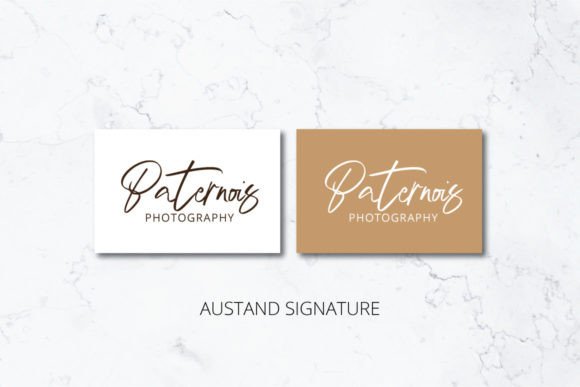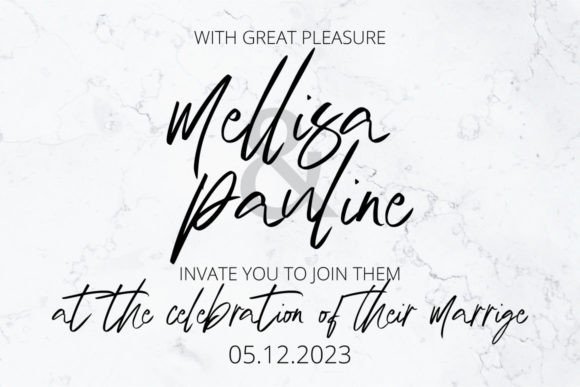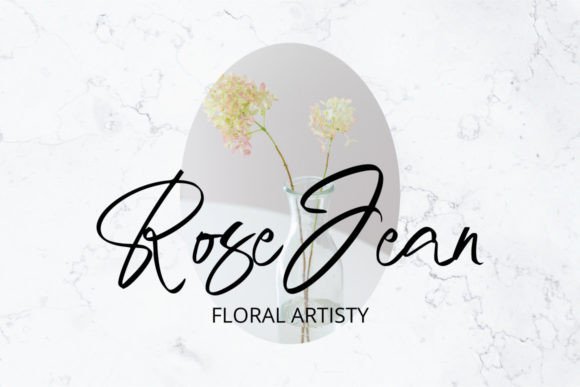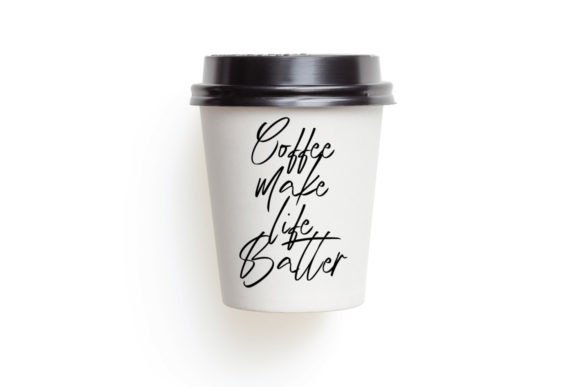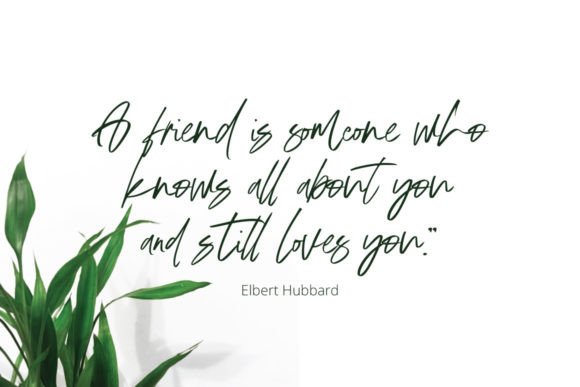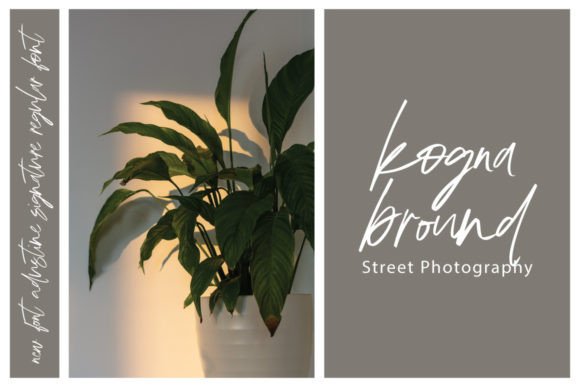
Austand Signature Font: Elevate Your Designs with Elegance and Sophistication
In the world of typography, a well-crafted font can make all the difference in transforming a design from ordinary to extraordinary. For designers and crafters seeking to add a touch of elegance and sophistication to their projects, Austand Signature Font is an exquisite handwritten font that is sure to capture your heart. With its masterful blend of classy calligraphic influences and contemporary flair, Austand Signature is the perfect choice for those who want to take their designs to the highest levels.
The Story Behind Austand Signature Font
Austand Signature Font is a meticulously designed font that boasts a unique and distinctive character. Its creator has poured their heart and soul into crafting a font that not only exudes elegance but also feels fresh and modern. The result is a beautiful handwritten font that is perfect for a wide range of design applications, from wedding invitations and branding materials to packaging and digital media.
Key Features of Austand Signature Font
So, what makes Austand Signature Font so special? Here are just a few of its key features:
- Exquisite Handwritten Style: Austand Signature Font features a beautiful, handwritten style that is both elegant and refined.
- Classy Calligraphic Influences: The font’s calligraphic influences add a touch of sophistication and luxury to any design.
- Contemporary and Fresh: Despite its classic influences, Austand Signature Font feels modern and fresh, making it perfect for designers who want to create unique and eye-catching designs.
- Highly Versatile: This font is suitable for a wide range of design applications, from print materials to digital media.
Why Choose Austand Signature Font?
With so many fonts available, why choose Austand Signature Font? Here are just a few compelling reasons:
- Stand Out from the Crowd: With Austand Signature Font, you can create designs that stand out from the crowd and leave a lasting impression on your audience.
- Elegance and Sophistication: This font exudes elegance and sophistication, making it perfect for designers who want to create high-end designs.
- Easy to Read: Despite its elegant style, Austand Signature Font is highly legible, making it perfect for body text and headlines.
- Support for Multiple Languages: This font supports multiple languages, making it a great choice for designers who work with international clients.
How to Use Austand Signature Font in Your Designs
Using Austand Signature Font in your designs is easy. Here are a few tips to get you started:
- Pair it with Other Fonts: Austand Signature Font pairs beautifully with other fonts, so don’t be afraid to experiment with different combinations.
- Use it for Headlines and Titles: This font is perfect for headlines and titles, where its elegant style can really shine.
- Add it to Your Brand Identity: If you’re looking to create a consistent brand identity, consider adding Austand Signature Font to your typography arsenal.
In conclusion, Austand Signature Font is a truly exceptional handwritten font that is sure to become a favorite among designers and crafters. With its exquisite style, classy calligraphic influences, and contemporary flair, this font is perfect for anyone looking to add a touch of elegance and sophistication to their designs. Whether you’re working on a wedding invitation, branding materials, or digital media, Austand Signature Font is the perfect choice. So why wait? Fall in love with Austand Signature Font and take your designs to the highest levels!